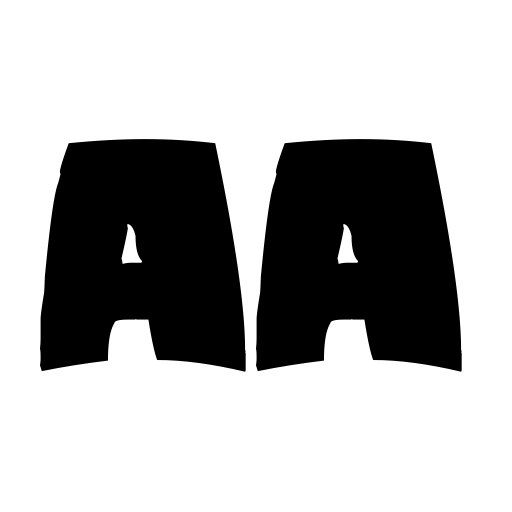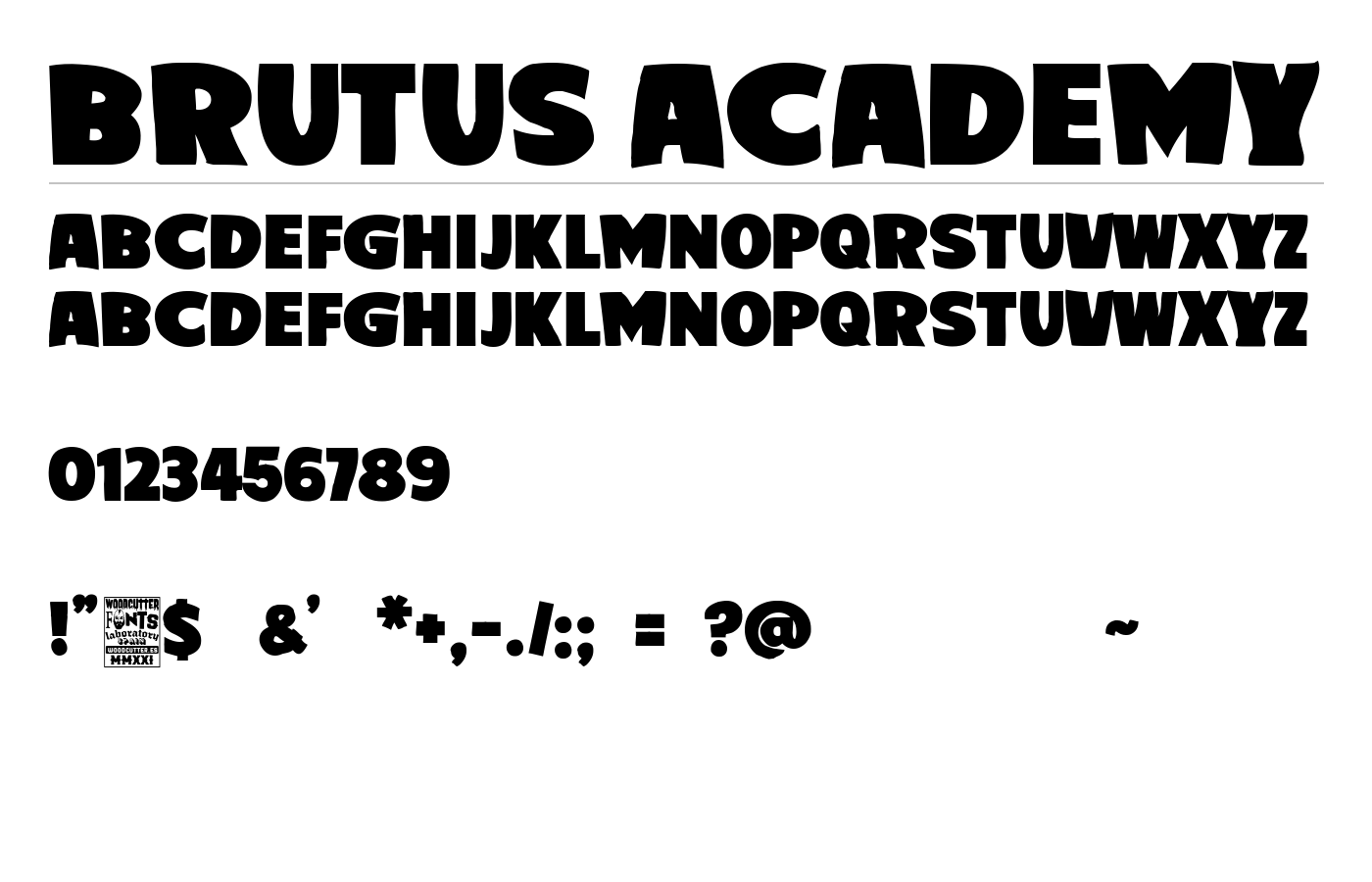
Brutus Academy is a bold, playful sans serif font with chunky, irregular letterforms that give it a fun and approachable personality. Its heavy weight and wide proportions make it ideal for eye-catching headlines and branding aimed at youthful, creative, or informal audiences. This font works best in posters, logos, and packaging where a strong, energetic impact is needed.
Brutus Academy Font
About Brutus Academy Font